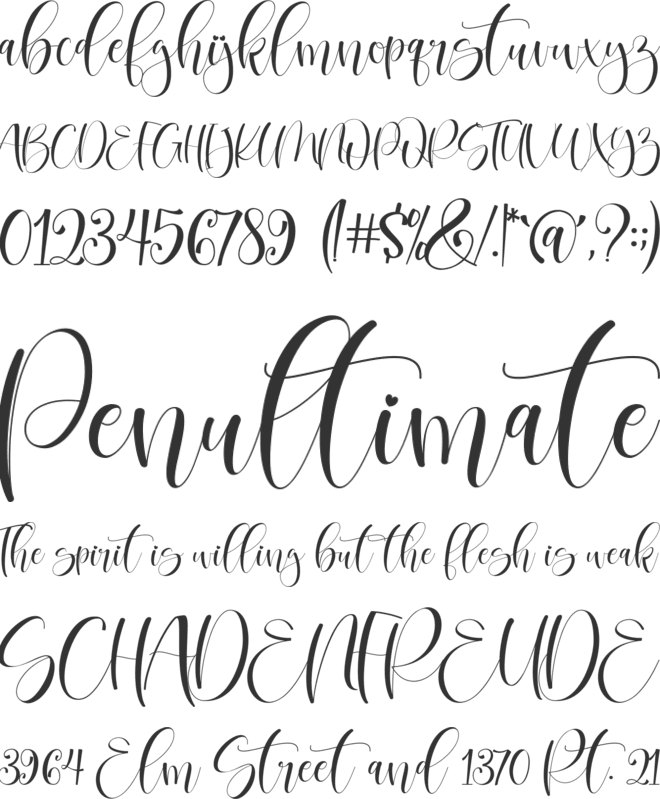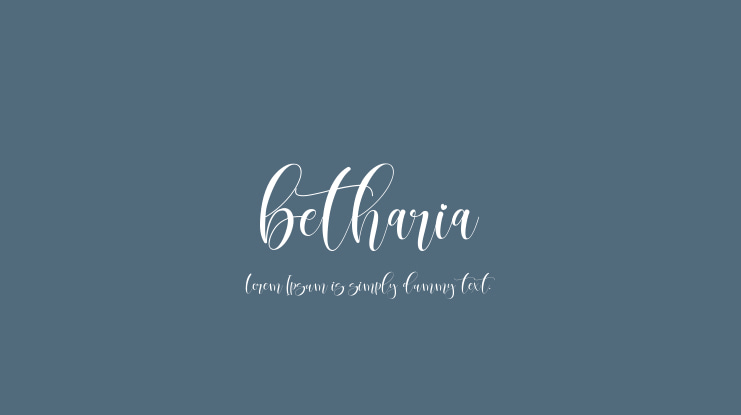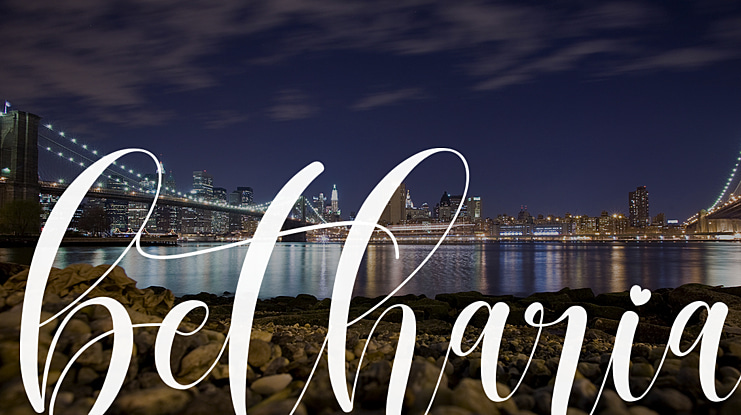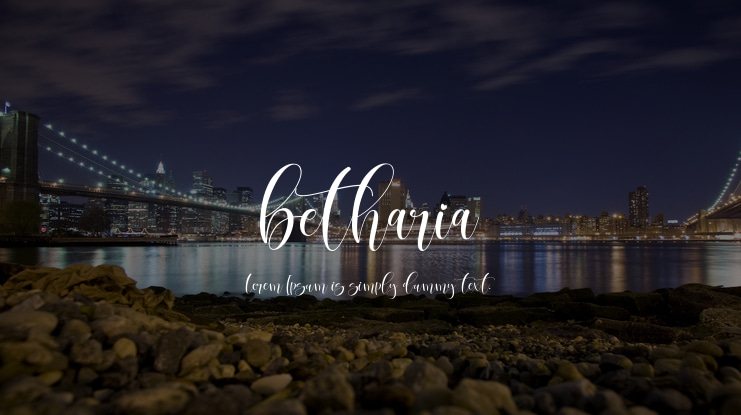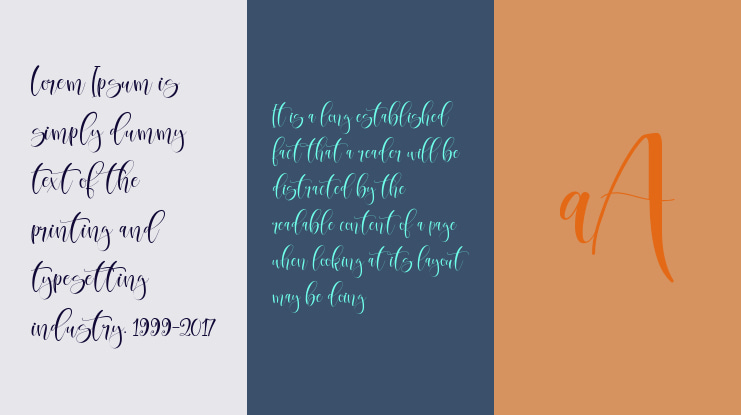
betharia Font
say hello to Betharia ! Betharia is a unique, cute and Sweety Stylistic Calligraphy. It's hand look style makes perfect to use for invitation, stationery, wedding designs, social media posts, advertisements, product packaging, product designs, label, photography, watermark, special events,logos, signatures, quotes, badges, labels, packaging design, blog headlines or simply use it in your next design project.
Using Betharia definitely make your text stand out.The alternative Betharia comes includes full set of gorgeous uppercase and lowercase letters, multilingual support, punctuation, and stylistic set gorgeous extras from a to z and beginning and ending numerals swashes. everything can be easily accessed using software that supports OpenType. Like Adobe Indesign, Adobe Illustrator CS, Adobe Photoshop CC, and Corel Draw..
You can mix and match with Opentype feature: Ekstras 32 ligature More than 363 of glyphs Alternates Stylistic sets from ss01 to ss07